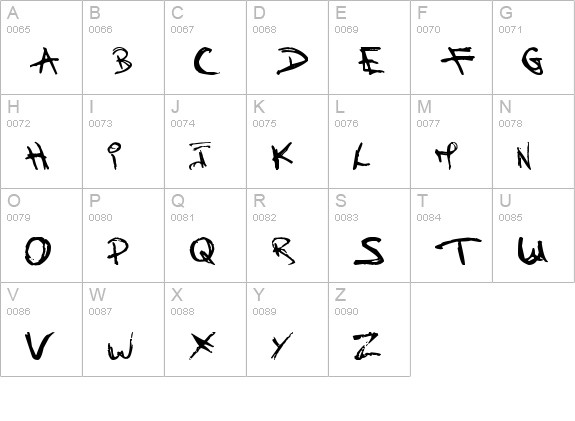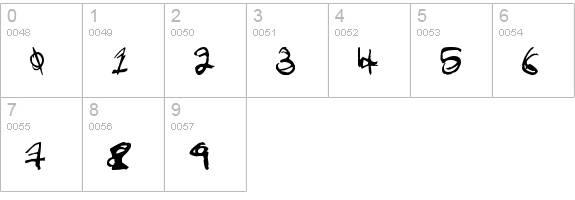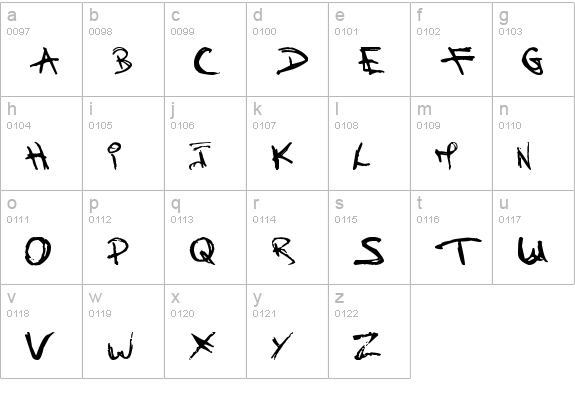
Children Once Where Font Details
Children Once Where font is a fun and playful typeface that brings a touch of whimsy to any project. With its charming and childlike appearance, this font is perfect for children's books, posters, invitations, and more. The rounded edges and friendly letterforms create a welcoming and approachable feel that will captivate young readers. What sets Children Once Where font apart is that it is not only visually appealing but also freely available to download at FontsMarket.com. This means that you can easily access this delightful font without any cost, making it a fantastic option for budget-conscious designers, educators, and parents alike. Whether you are working on a personal project, a school assignment, or a professional design, Children Once Where font is a valuable resource that won't break the bank. The versatility of Children Once Where font allows it to be used in a variety of settings. Its legibility ensures that it is easy to read, making it suitable for both large headlines and small body text. The whimsical nature of this font also makes it an excellent choice for creating eye-catching logos and branding materials for children's products and services. Downloading Children Once Where font from FontsMarket.com is a straightforward and hassle-free process. Simply visit the website, locate the font, and click the download button. Once downloaded, you can install it on your computer or device and start using it immediately. The font file is compatible with various design software, including Adobe Photoshop, Illustrator, and InDesign, ensuring seamless integration into your creative workflow. With its delightful and free availability, Children Once Where font is a must-have for anyone looking to add a touch of magic and playfulness to their designs. Download it today from FontsMarket.com and let your imagination run wild with endless possibilities.